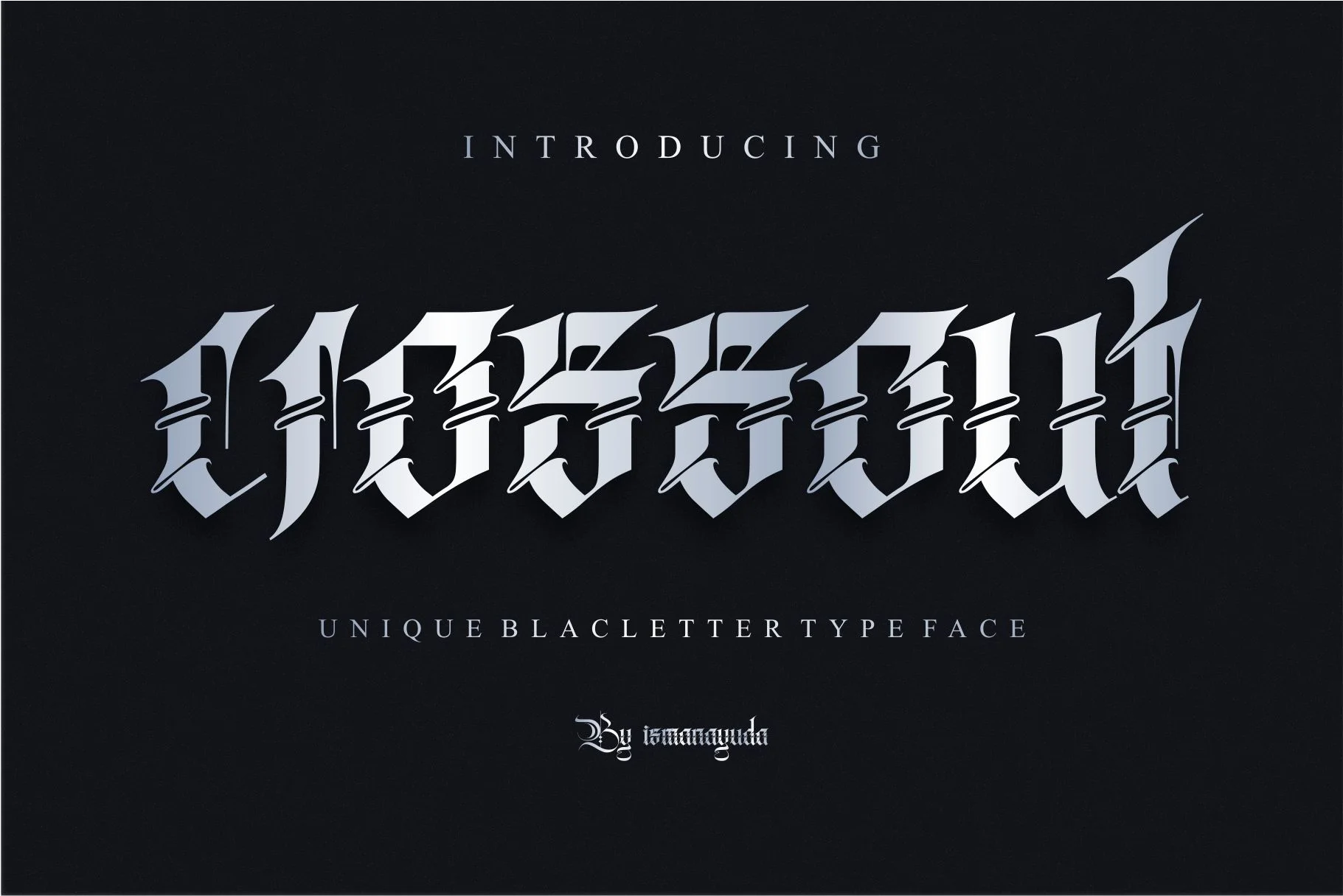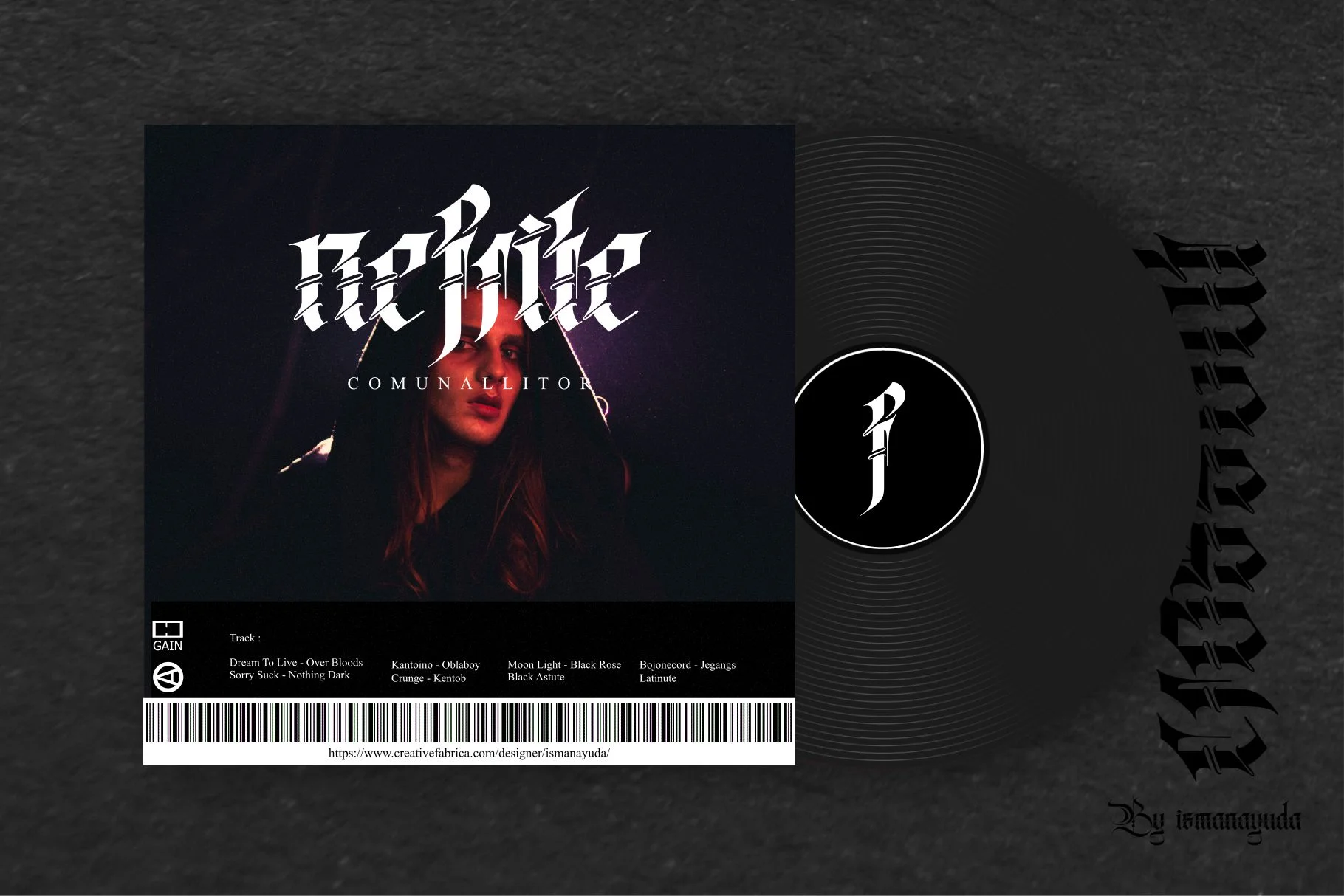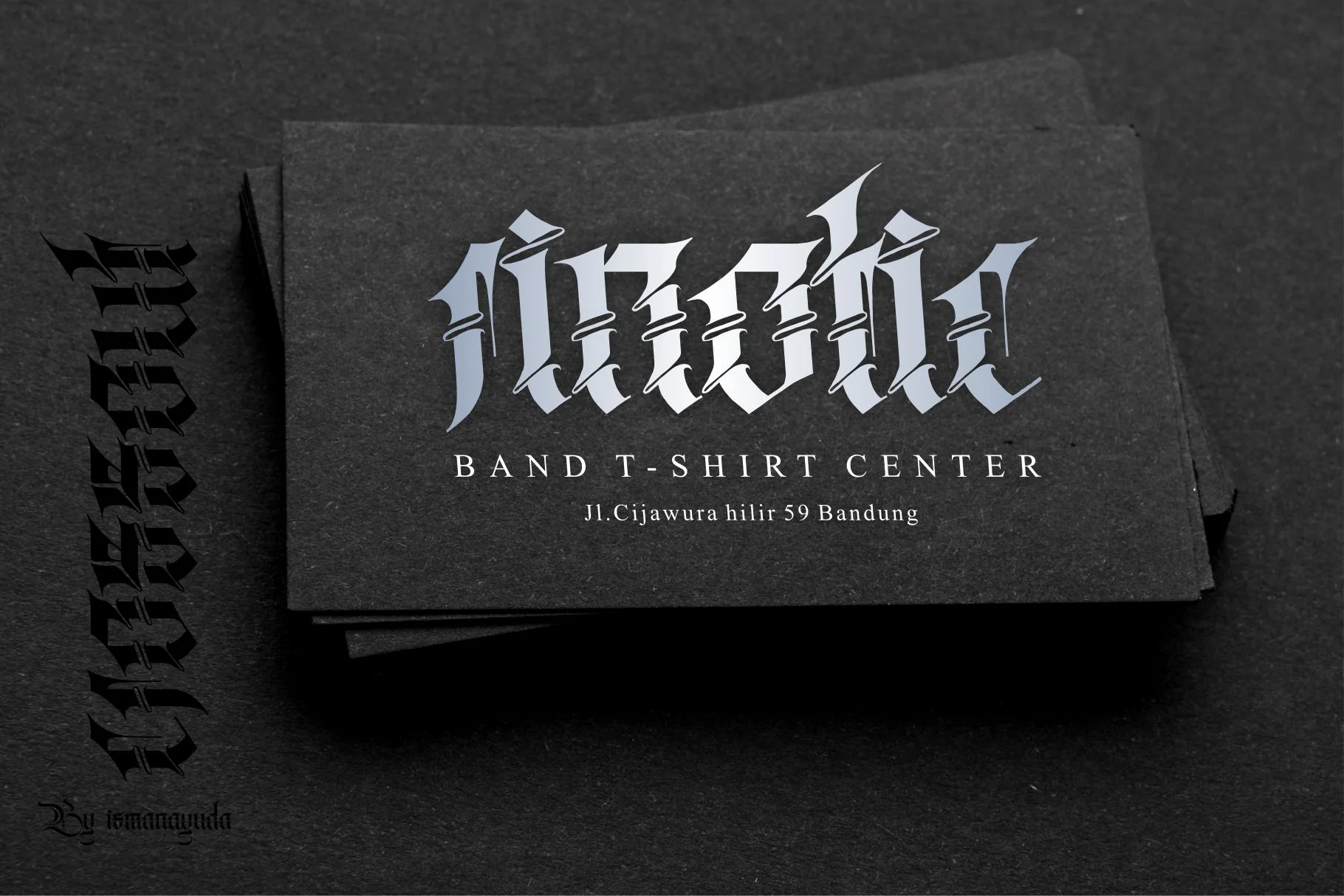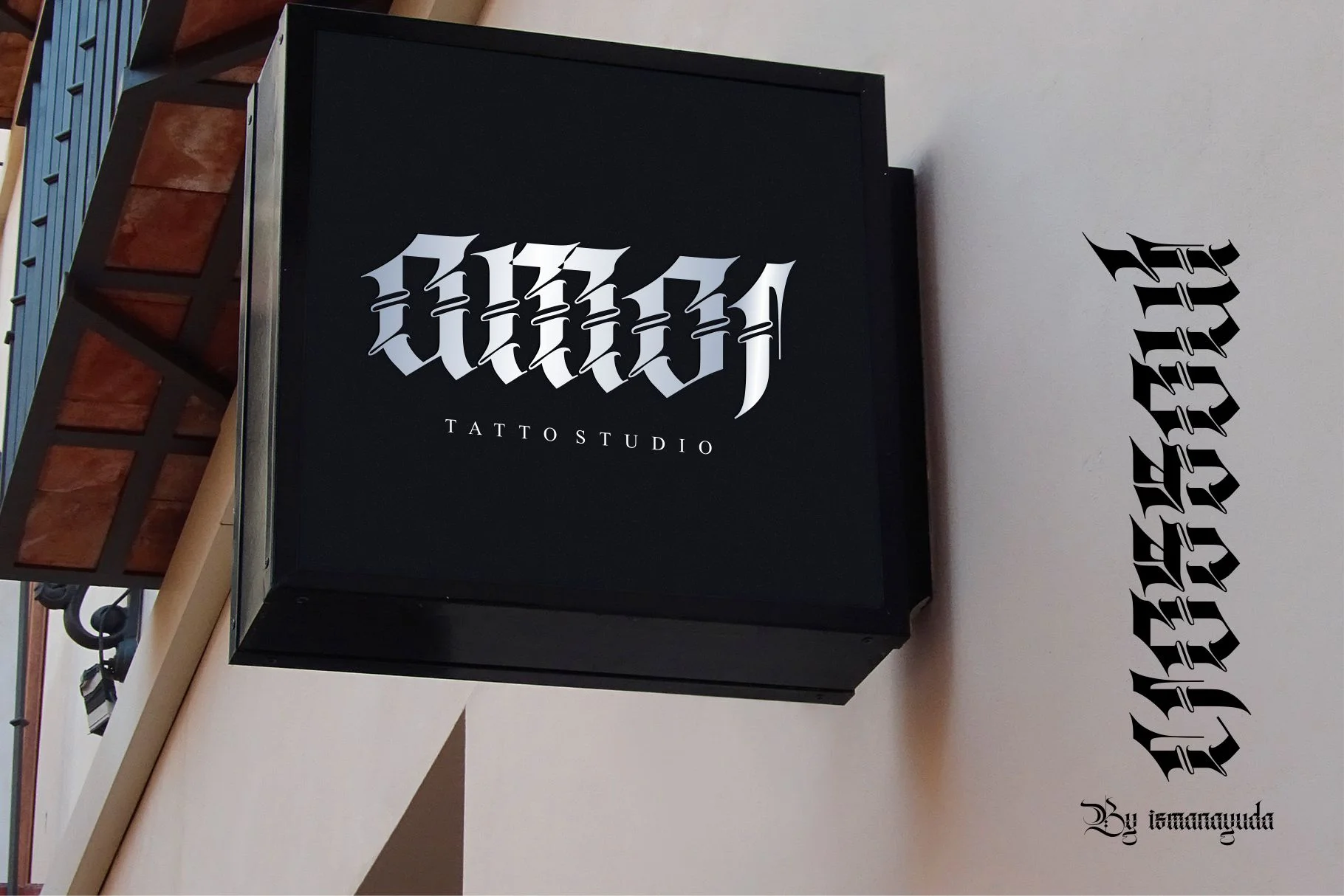
Crossout
Crossout is a unique display font that masterfully blends traditional Gothic calligraphy with a sharp, contemporary edge. Its visual identity is defined by bold, angular letterforms that convey a strong sense of craftsmanship and historical heritage. While it draws inspiration from classic "Old English" styles, it incorporates subtle modern touches that make it versatile for a wide range of creative
This typeface is designed to command attention, making it an excellent choice for branding, high-impact posters, and packaging. It is also highly popular for band logos (especially in metal or hardcore genres), streetwear apparel, and tattoo-inspired designs due to its dramatic and authoritative presence.